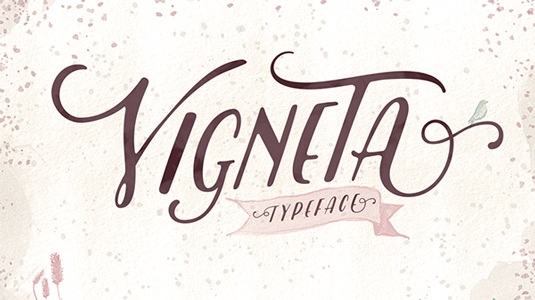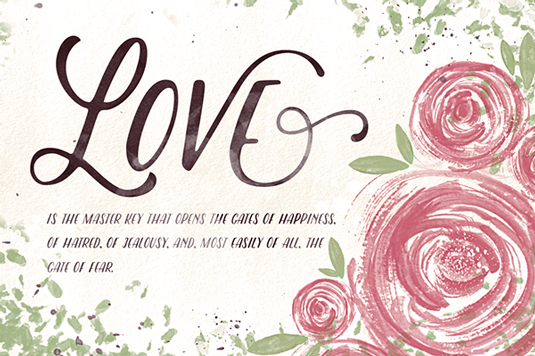
Font of the day: Vigneta
Every day we showcase the best fonts on the web. Today it's Vigneta by Ilham Henry.
Vigneta by Ilham Henry
An elegant, handmade script font, Vigneta was created by designer Ilham Henry. He comments on Behance: "An all caps font with a handwritten style, suitable when combined with watercolor, it can make your work more stylish."